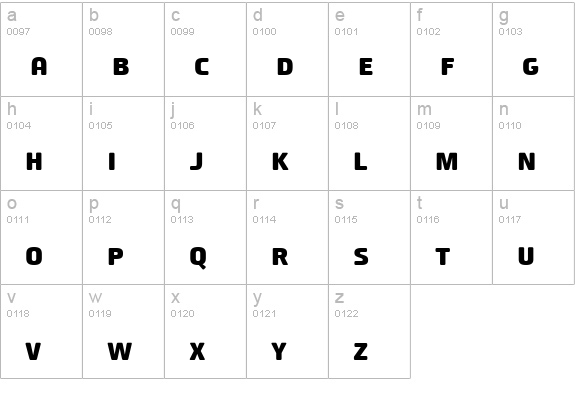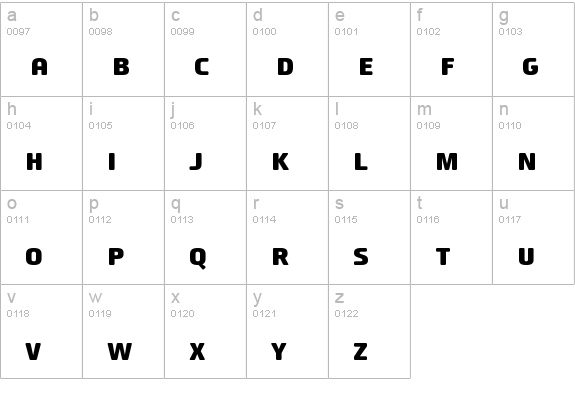
Mustardo-SmallCaps Font Details
Introducing Mustardo-SmallCaps font - a versatile and elegant typeface that combines classic charm with a modern twist. This unique font features small caps for a sophisticated and refined look, making it perfect for a wide range of design projects. Mustardo-SmallCaps is meticulously crafted with attention to detail, ensuring each letter is beautifully designed and perfectly balanced. Its clean lines and subtle curves give it a timeless appeal that will enhance any design it is used in. This exquisite font is not only stylish but also free to download at FontsMarket.com. Whether you're working on branding, editorial design, or any other creative project, Mustardo-SmallCaps is sure to add a touch of class and sophistication. Don't miss out on the opportunity to elevate your designs with this premium font, available for free at FontsMarket.com.